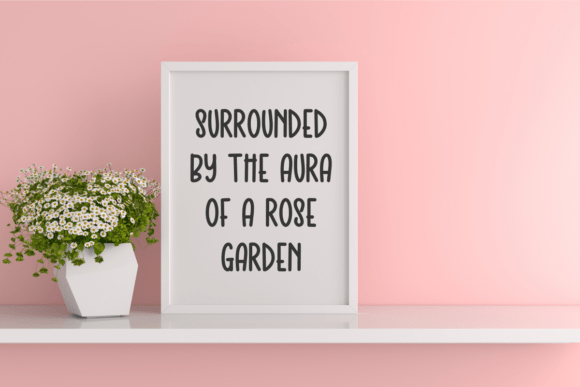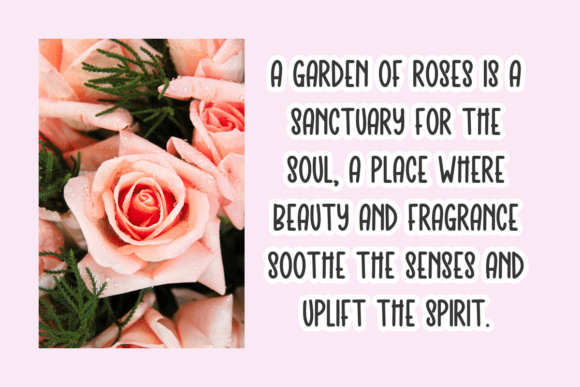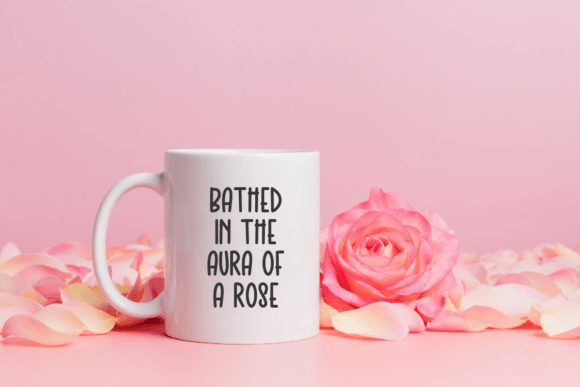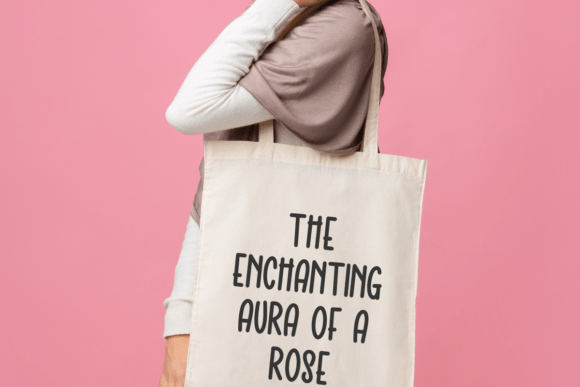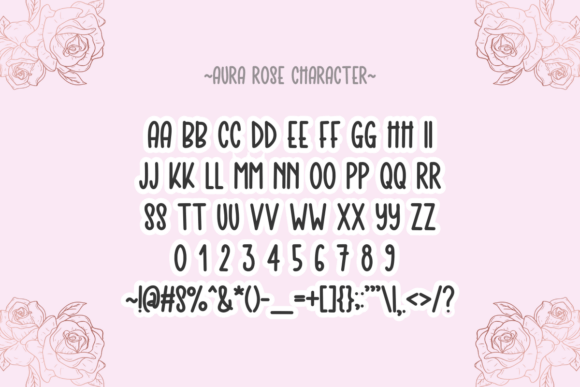
Aura Rose Font: The Perfect Playful Handwritten Font for Crafters and Designers
Are you a crafter, designer, or maker looking for a font that can add a touch of playfulness and friendliness to your projects? Look no further than the Aura Rose Font! This beautiful handwritten font is perfect for a variety of creative endeavors, including crafts, planners, KDP, stickers, greeting cards, and more.
What is Aura Rose Font?
Aura Rose Font is a modern, handwritten font that is designed to be both cute and versatile. Its playful style makes it ideal for a wide range of projects, from DIY crafts to commercial designs. With its friendly and approachable vibe, Aura Rose Font is sure to delight your audience and make your creations stand out.
Perfect for Crafters and Makers
Crafters and makers will love Aura Rose Font for its ability to add a personal touch to their projects. Whether you’re creating custom stickers, decorations, or gifts, this font is sure to bring a smile to the face of anyone who sees it. Its playful style works perfectly with Cricut machines, sublimation printing, and other creative DIY projects.
Ideal for Digital and Print Designs
Aura Rose Font is not just limited to physical crafts; it’s also perfect for digital designs. Use it to create eye-catching social media graphics, blog posts, or website headers. Its clear and readable style makes it ideal for body text, while its playful flair adds a touch of personality to headings and titles.
Key Features of Aura Rose Font
- Playful handwritten style: Adds a touch of personality and friendliness to your projects
- Cute and versatile: Works great for a wide range of projects, from crafts to commercial designs
- Ideal for Cricut and sublimation: Perfect for DIY projects and custom creations
- Easy to read: Clear and readable style makes it perfect for body text and headings
Aura Rose Font is a versatile and playful handwritten font that’s perfect for crafters, designers, and makers. Its cute and friendly style makes it ideal for a wide range of projects, from DIY crafts to commercial designs. With its easy-to-use format and clear readability, Aura Rose Font is sure to become a favorite in your design arsenal.